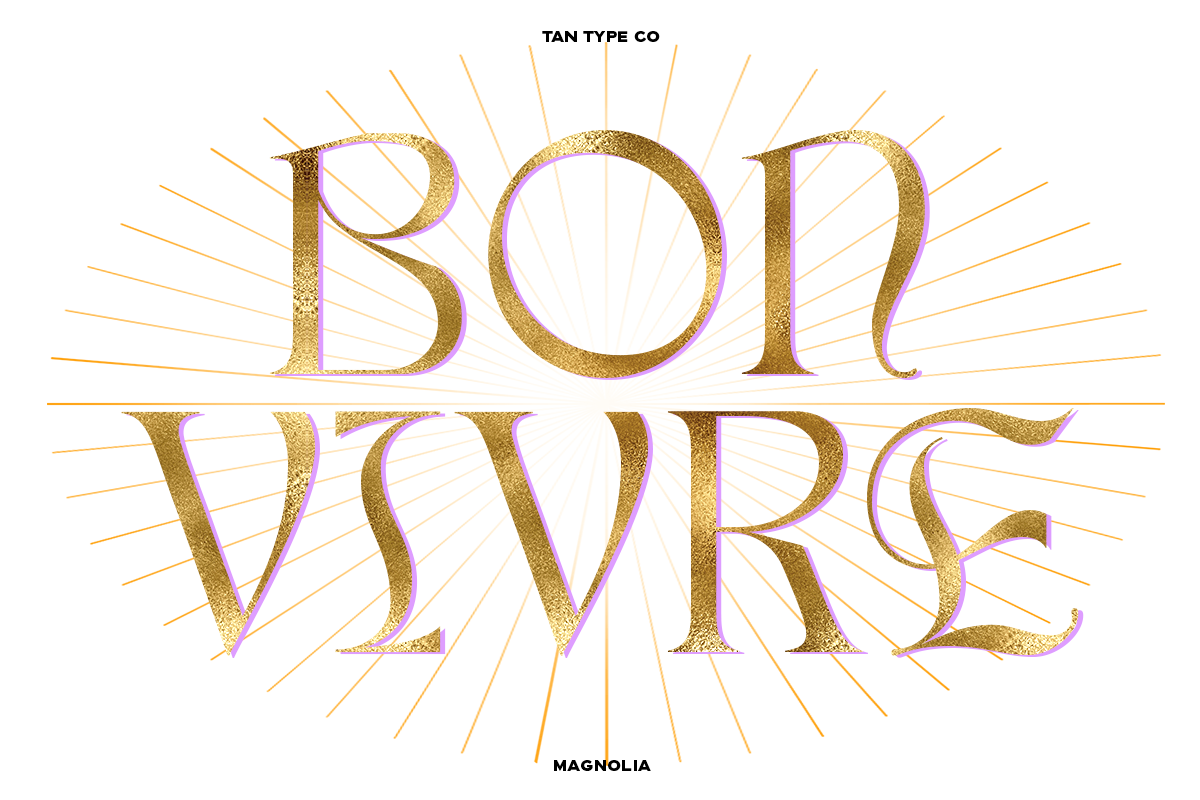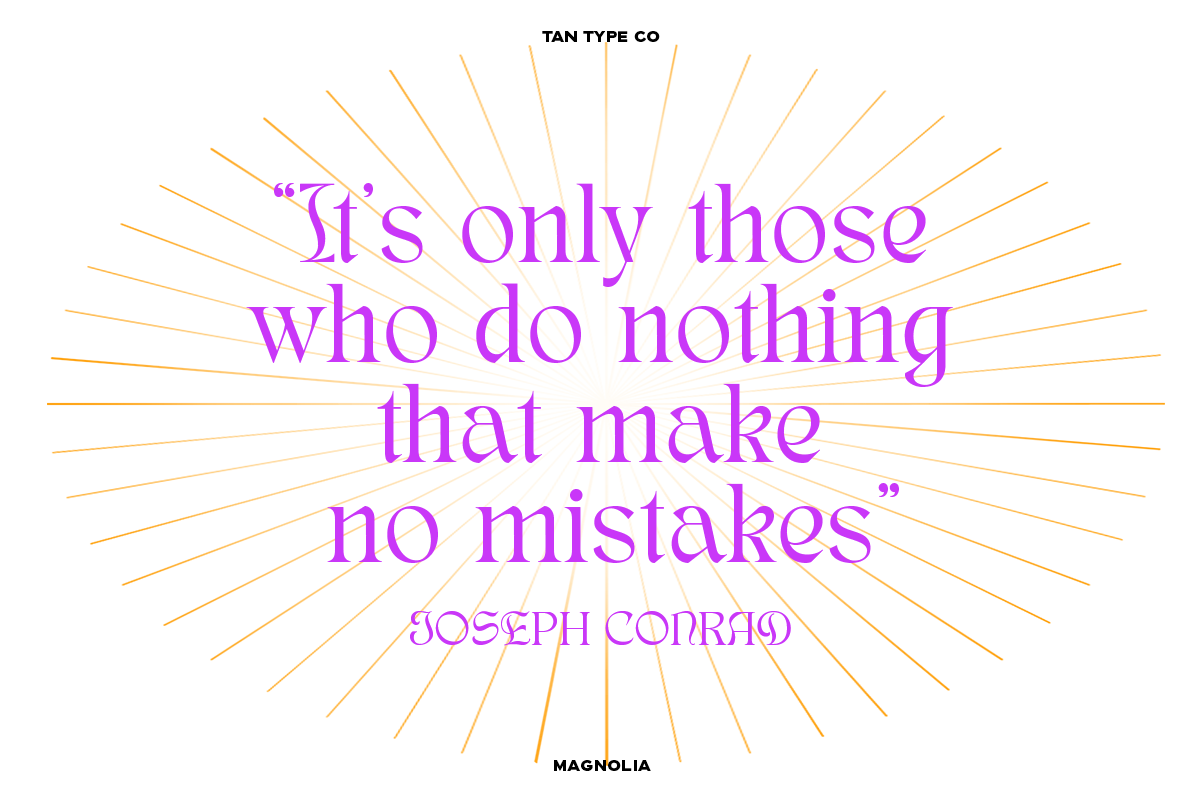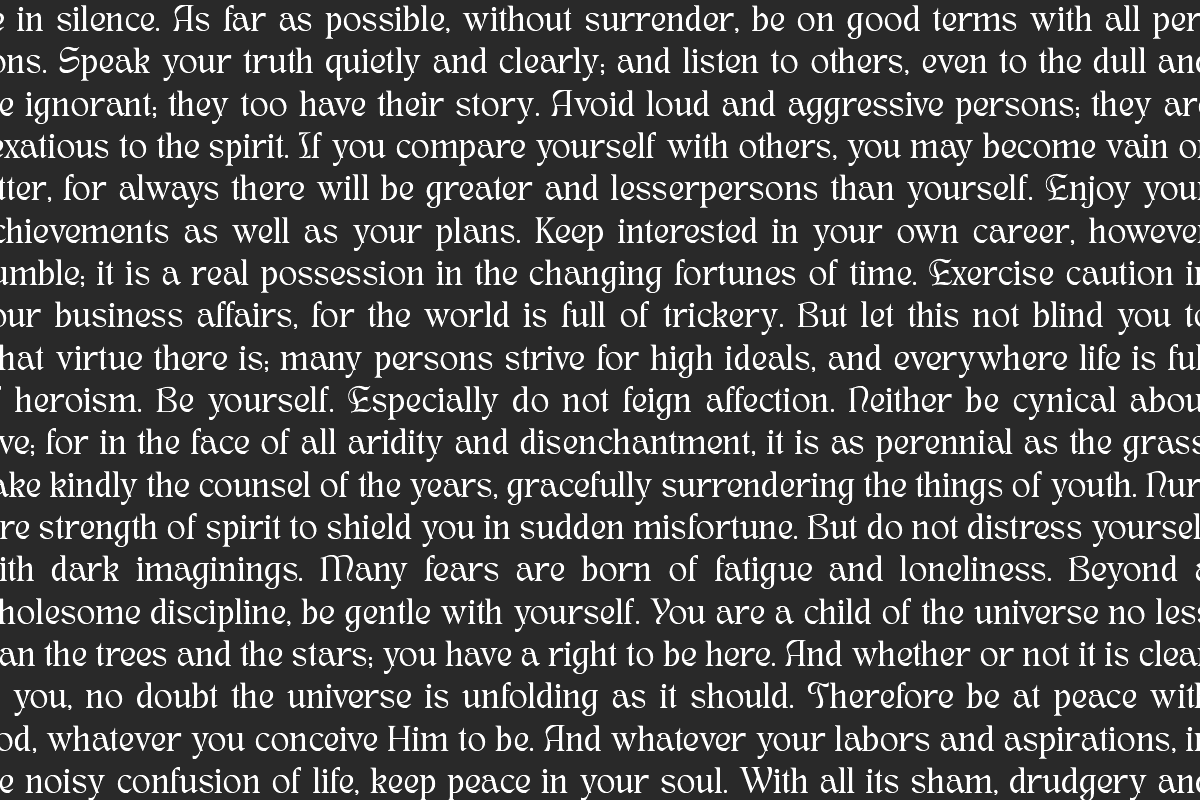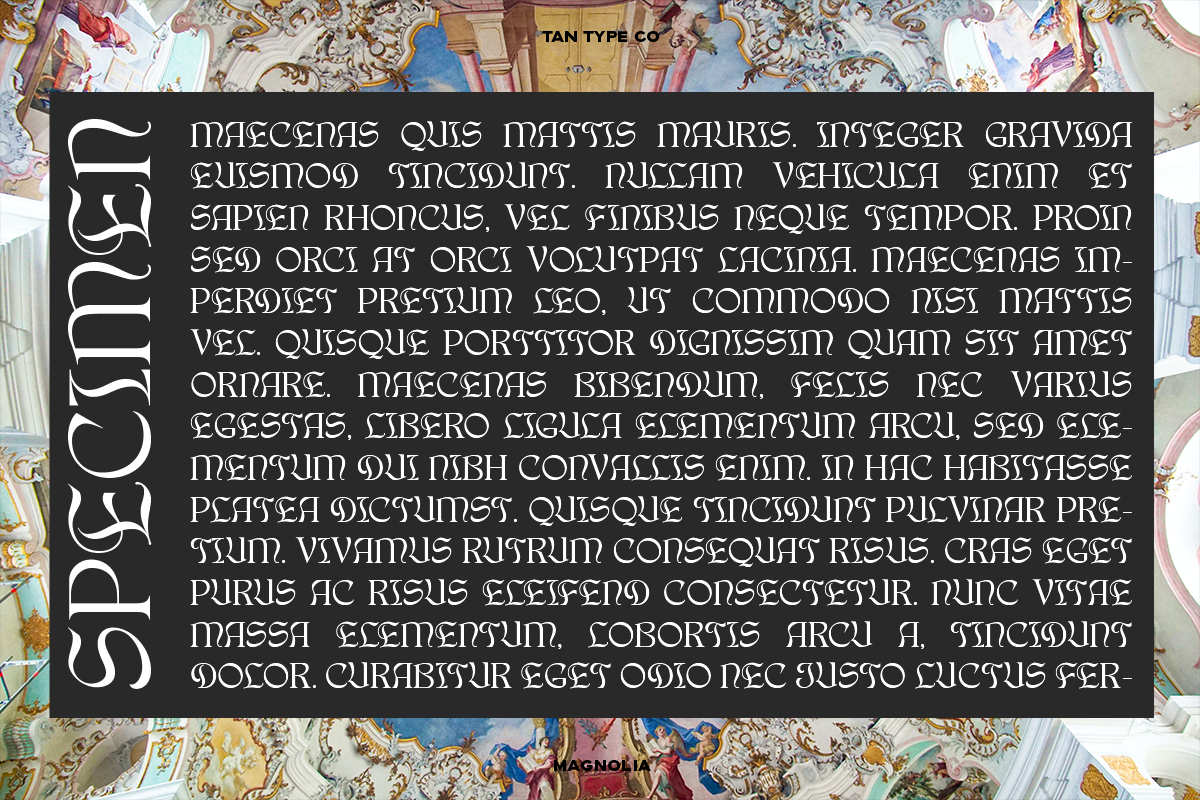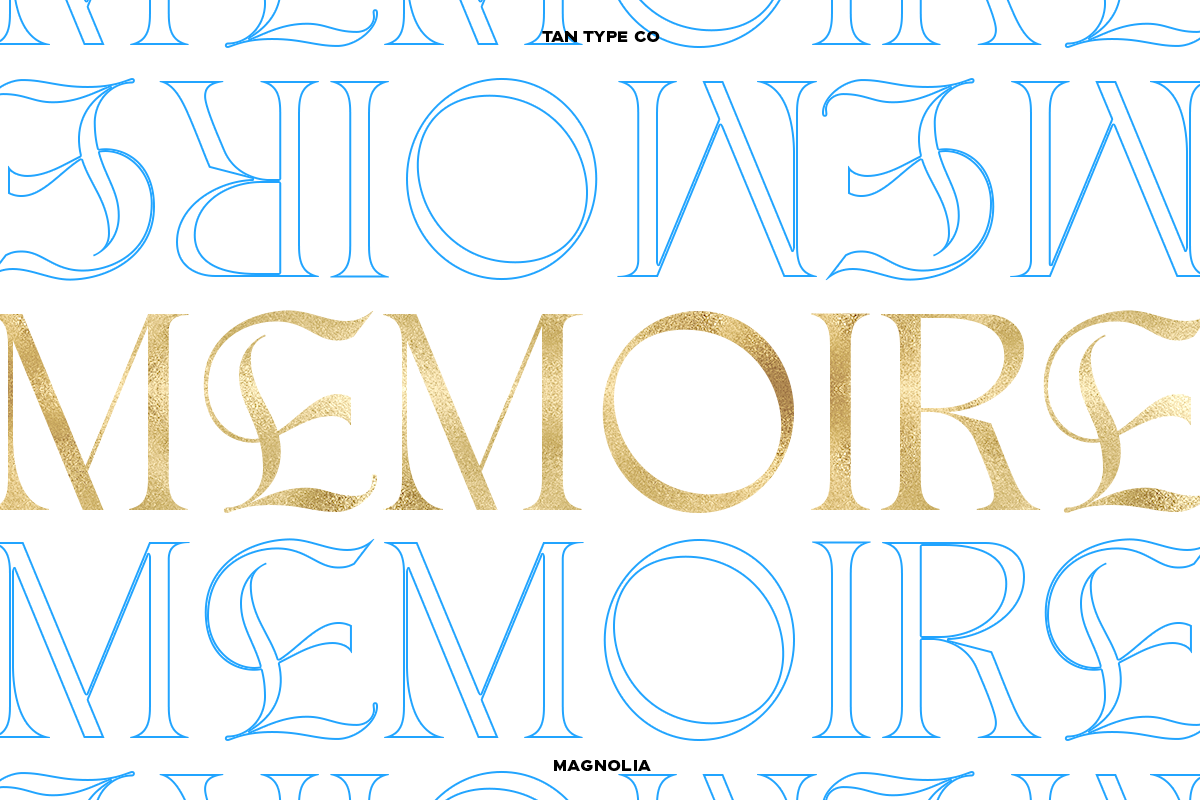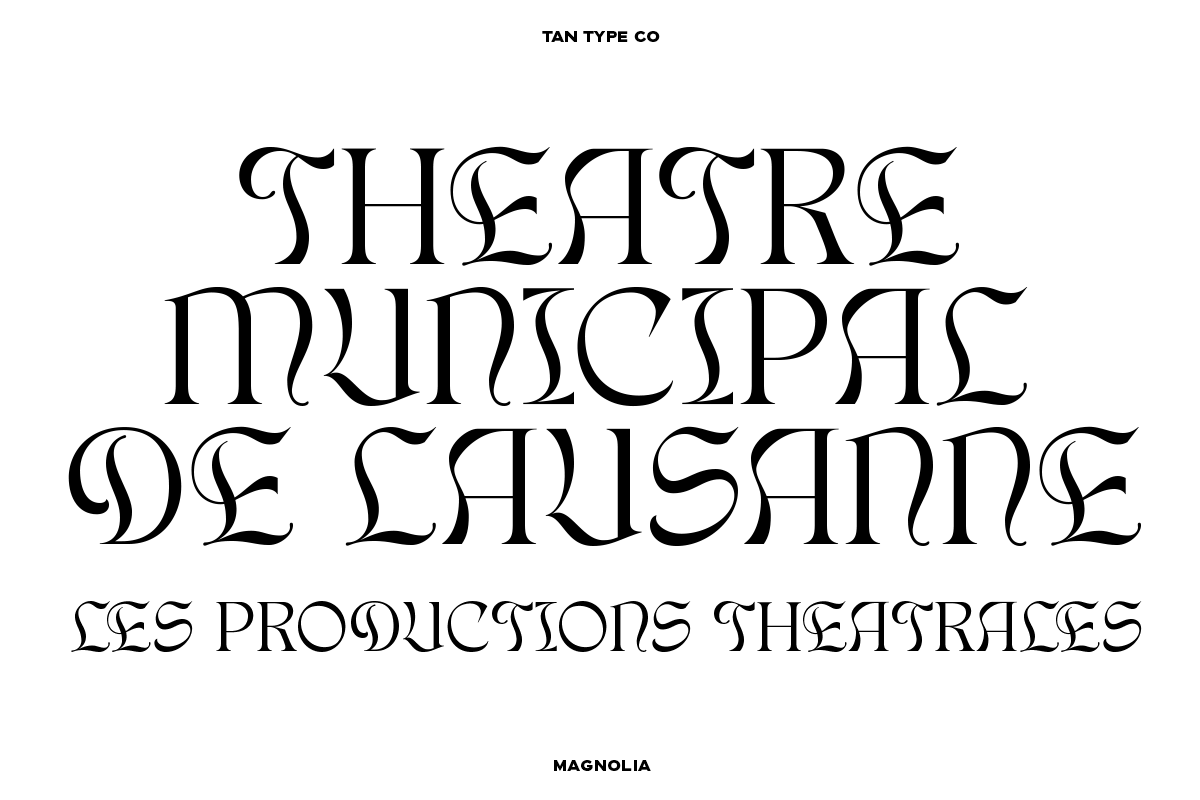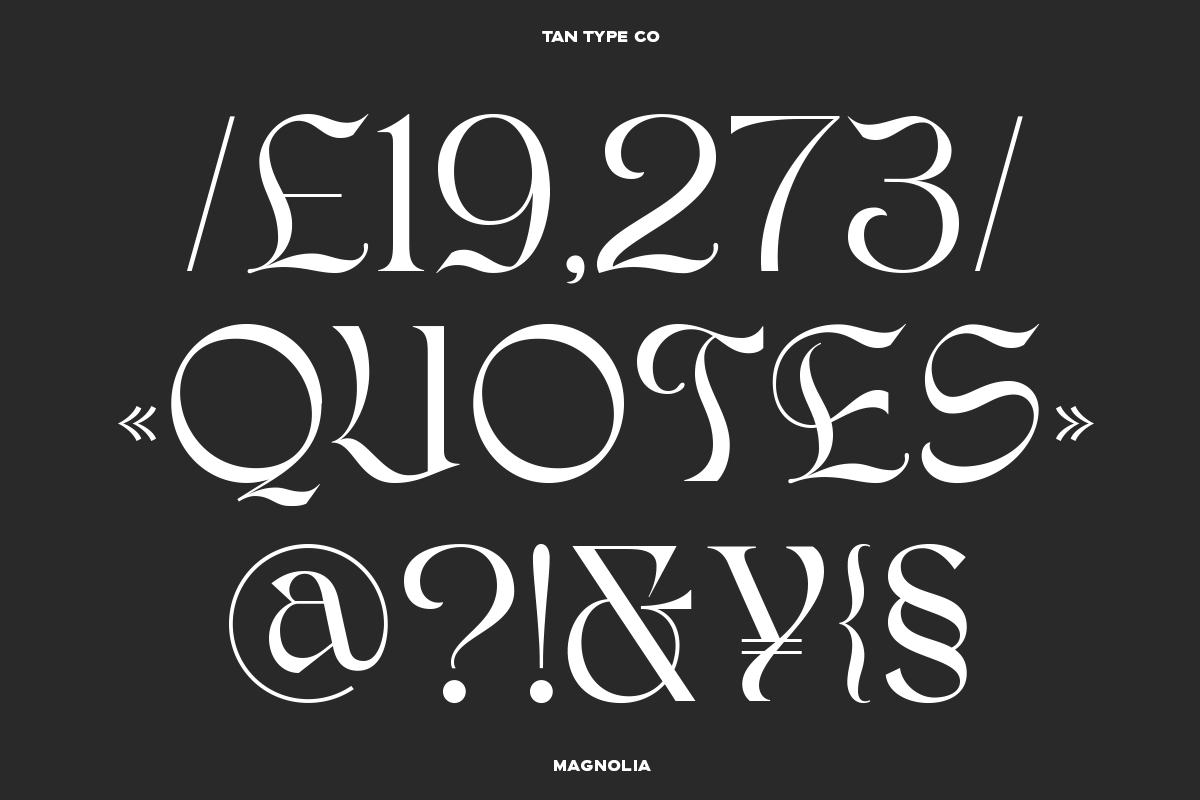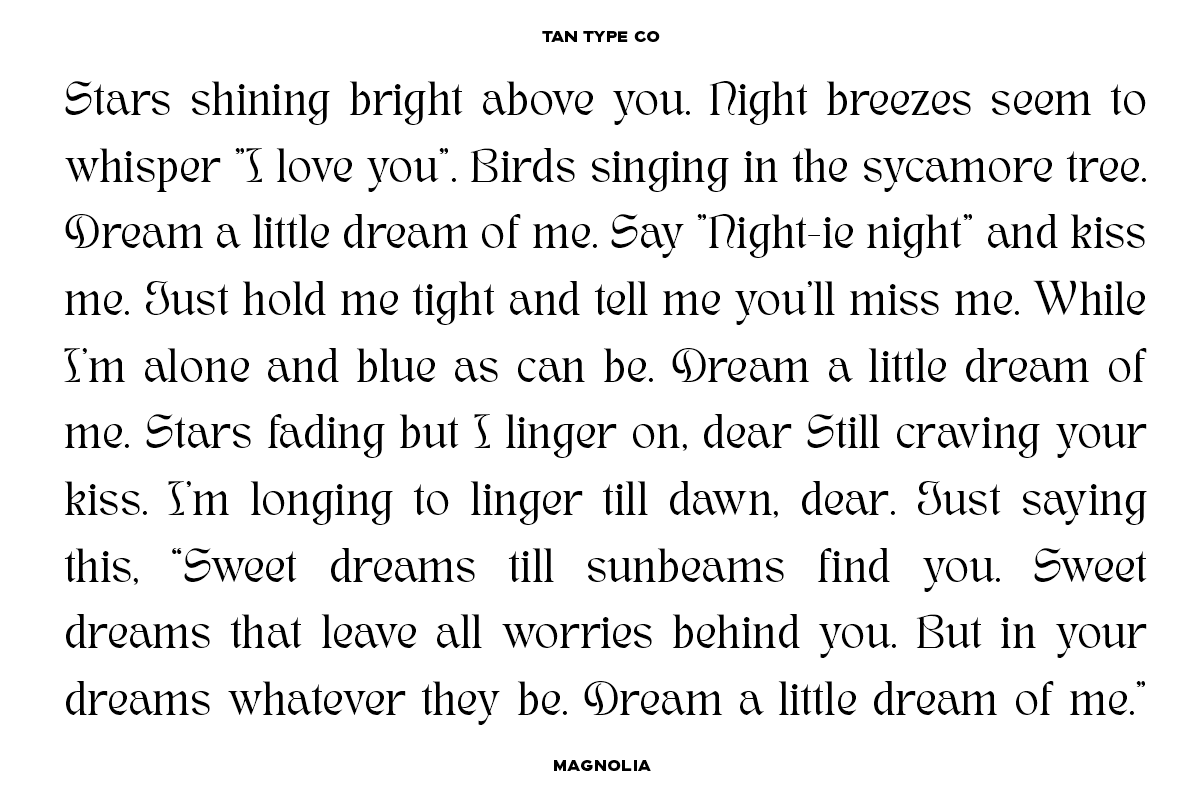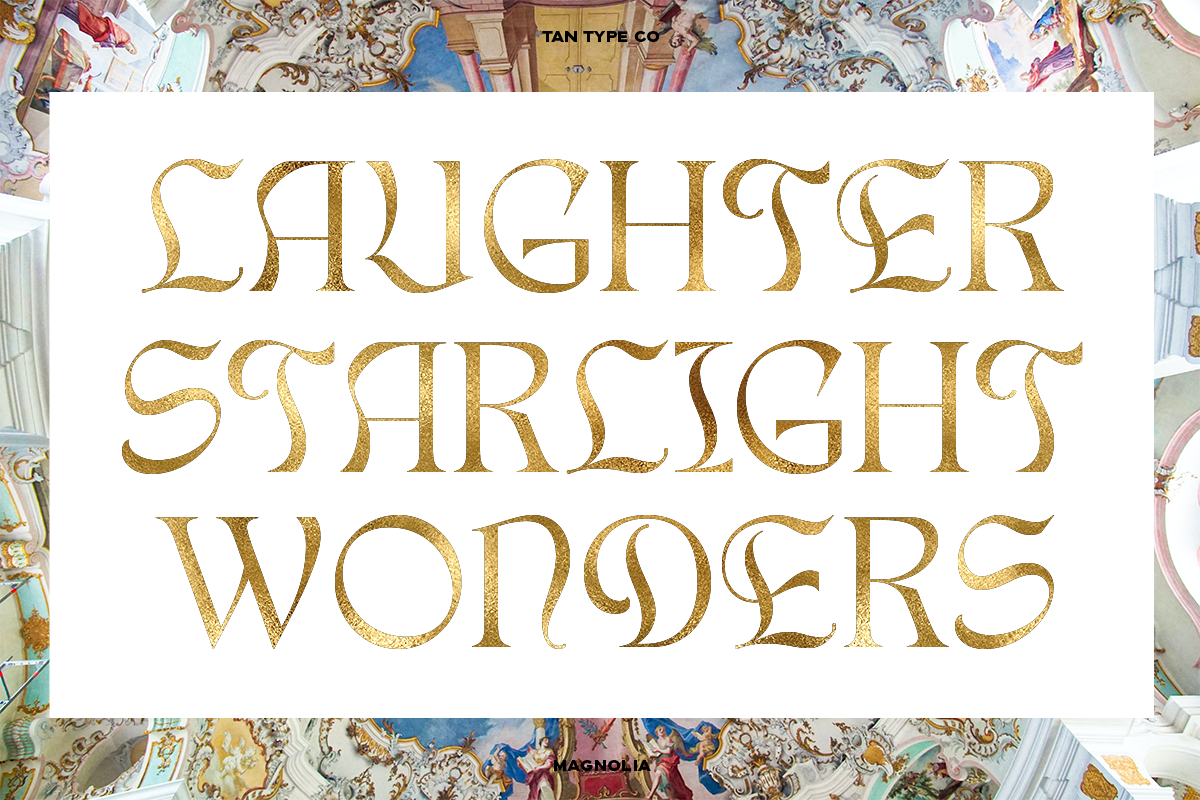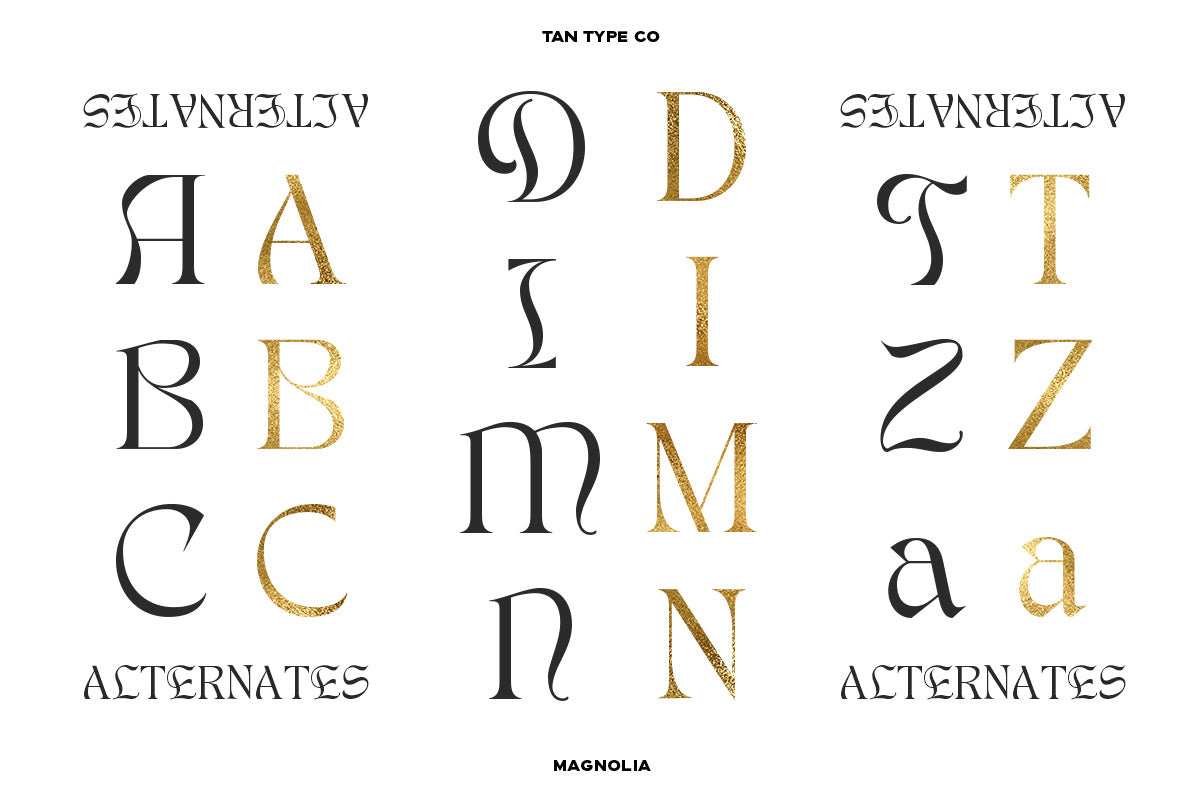
MAGNOLIA is an elegant and enchanting display serif typeface with high contrast and whimsical curves. Its distinctive letterforms blend classical serif structure with playful, flowing strokes, creating a graceful and sophisticated presence with a touch of fantasy.